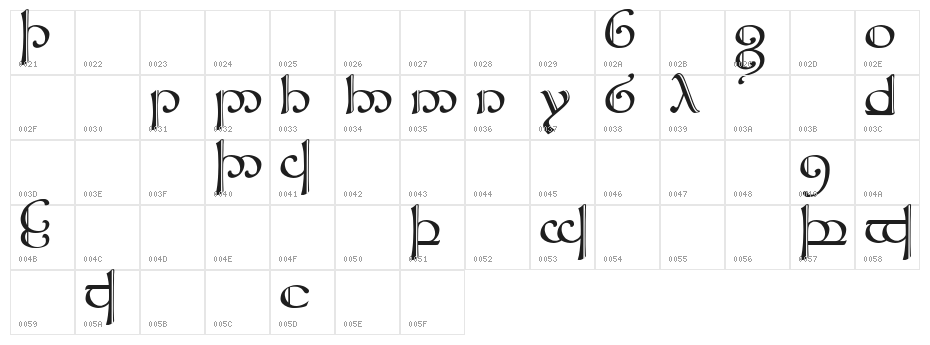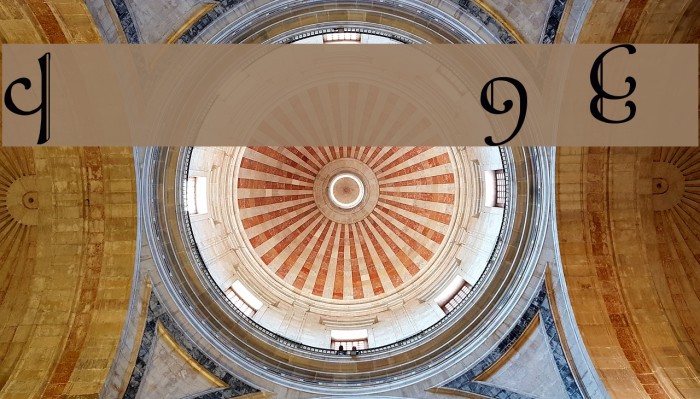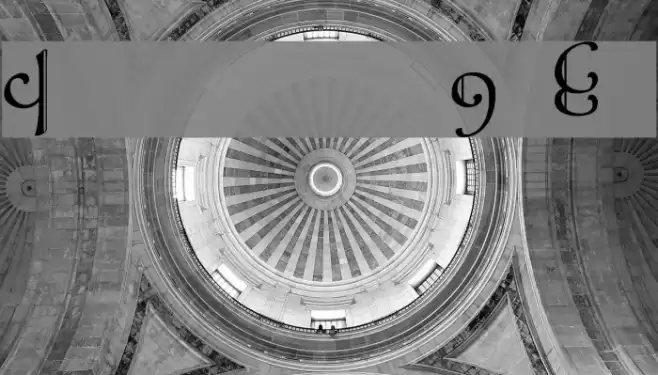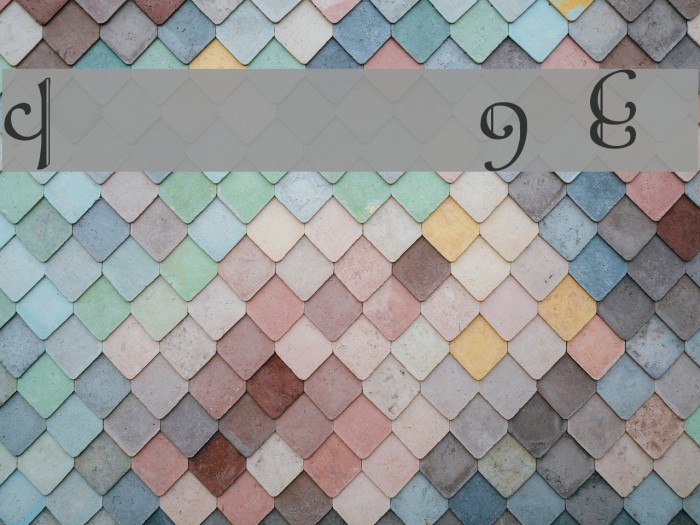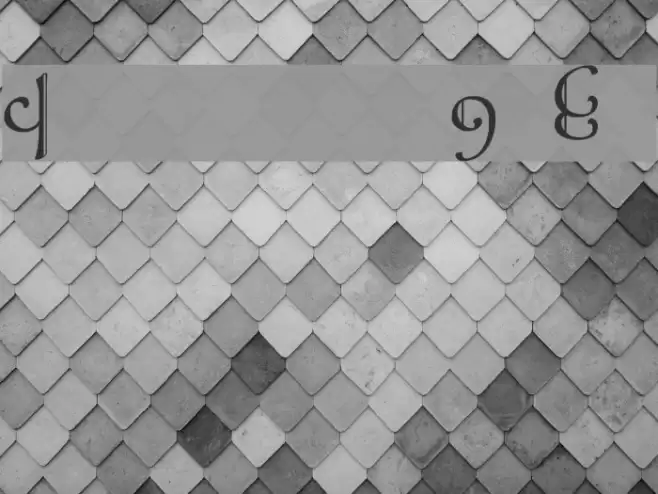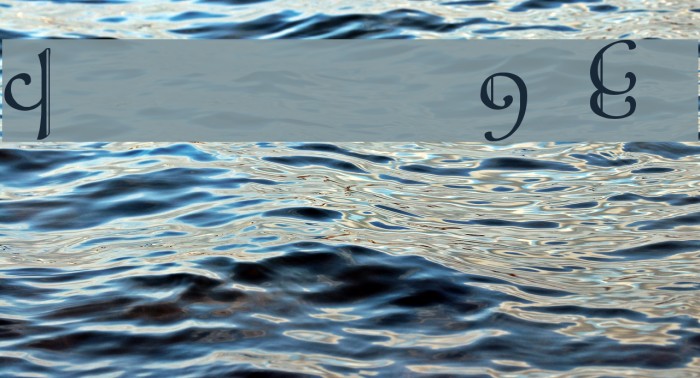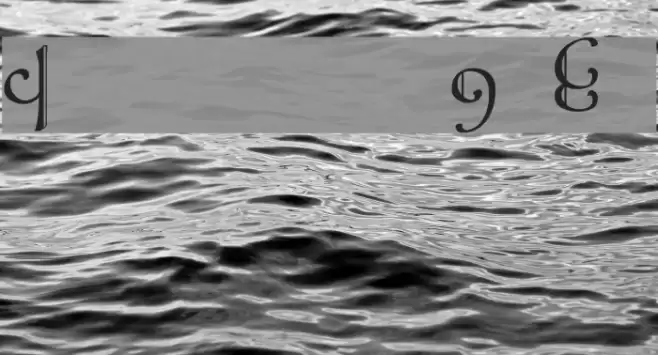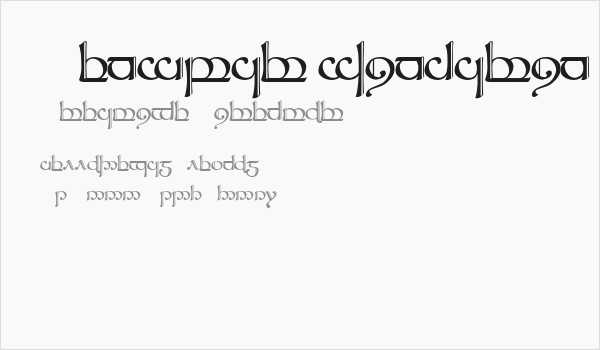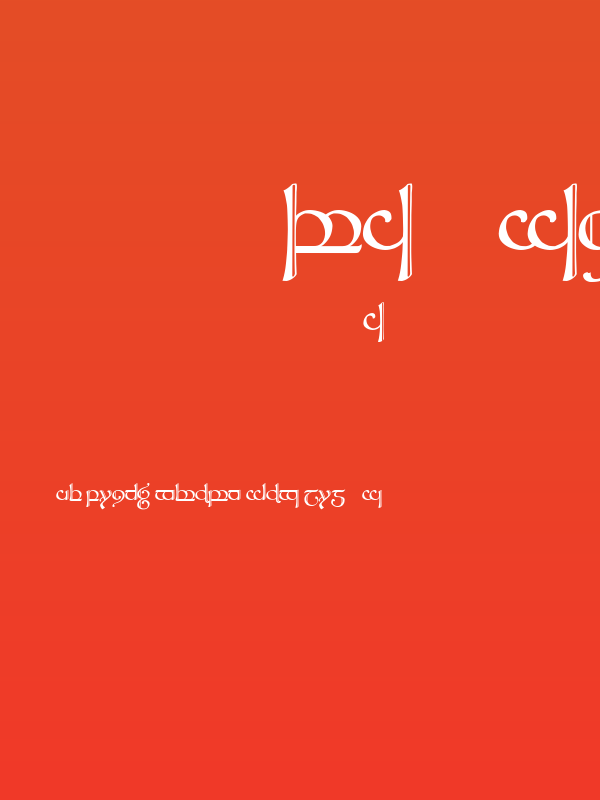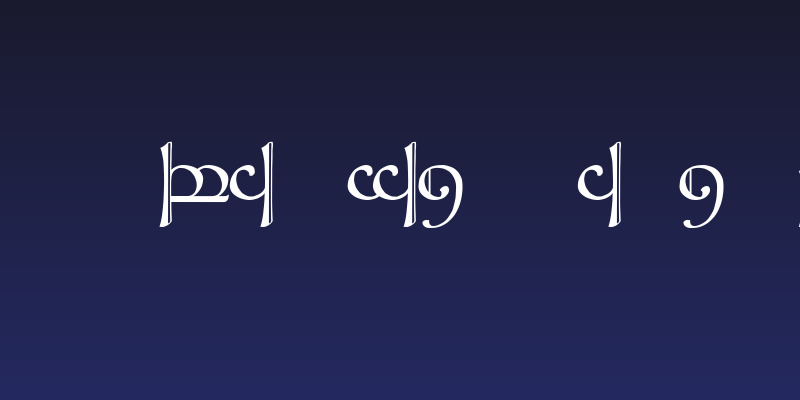
Tengwar Sindarin 2 Font
Tengwar Sindarin 2 Description
This font is a decorative script inspired by the Tengwar script, known for its elegant and flowing lines. The characters are intricately designed with a distinct fantasy aesthetic, featuring elongated strokes and unique curves that give it an otherworldly appearance. The font captures the essence of a fictional language, making it ideal for creative projects that require a touch of mysticism and fantasy. The characters are evenly spaced, with a medium contrast between thick and thin strokes, adding to its readability while maintaining its decorative style.
| Use Case | Logos, Decorative text, Fantasy-themed designs |
| Proposed Projects | Ideal for fantasy-themed projects, book covers, game design, and decorative posters. |